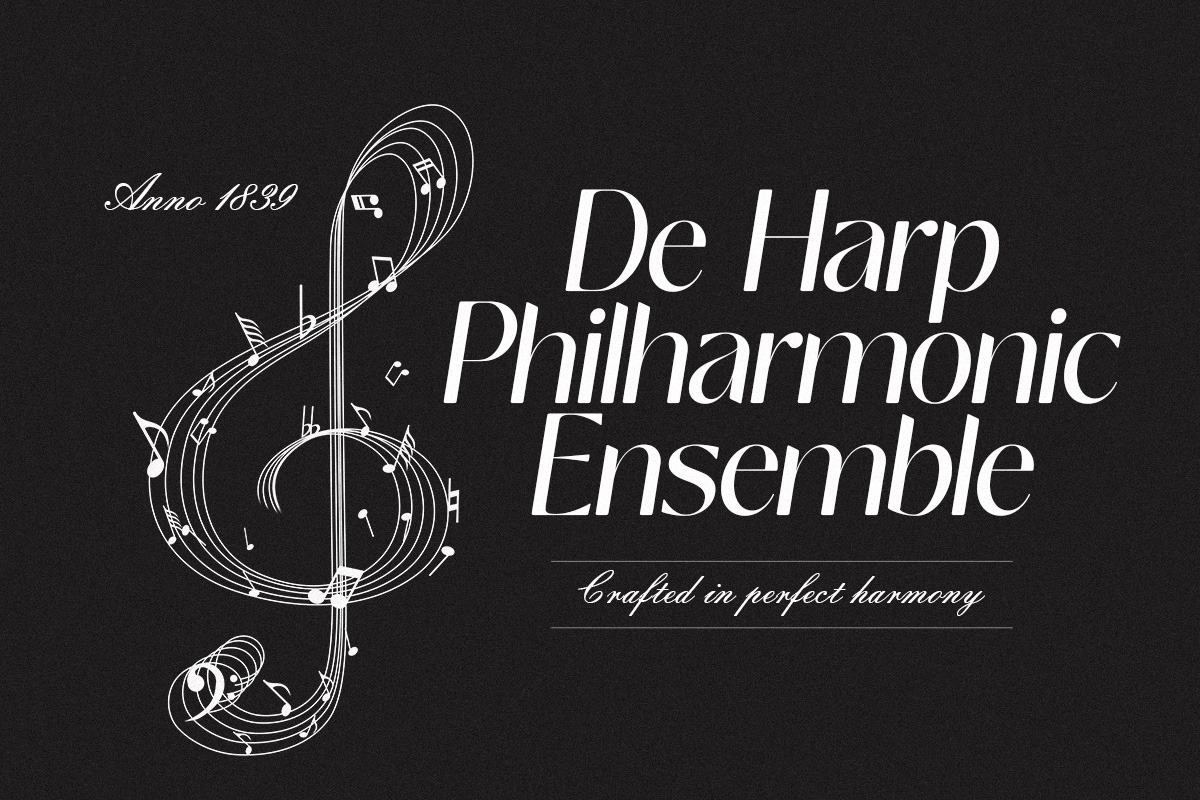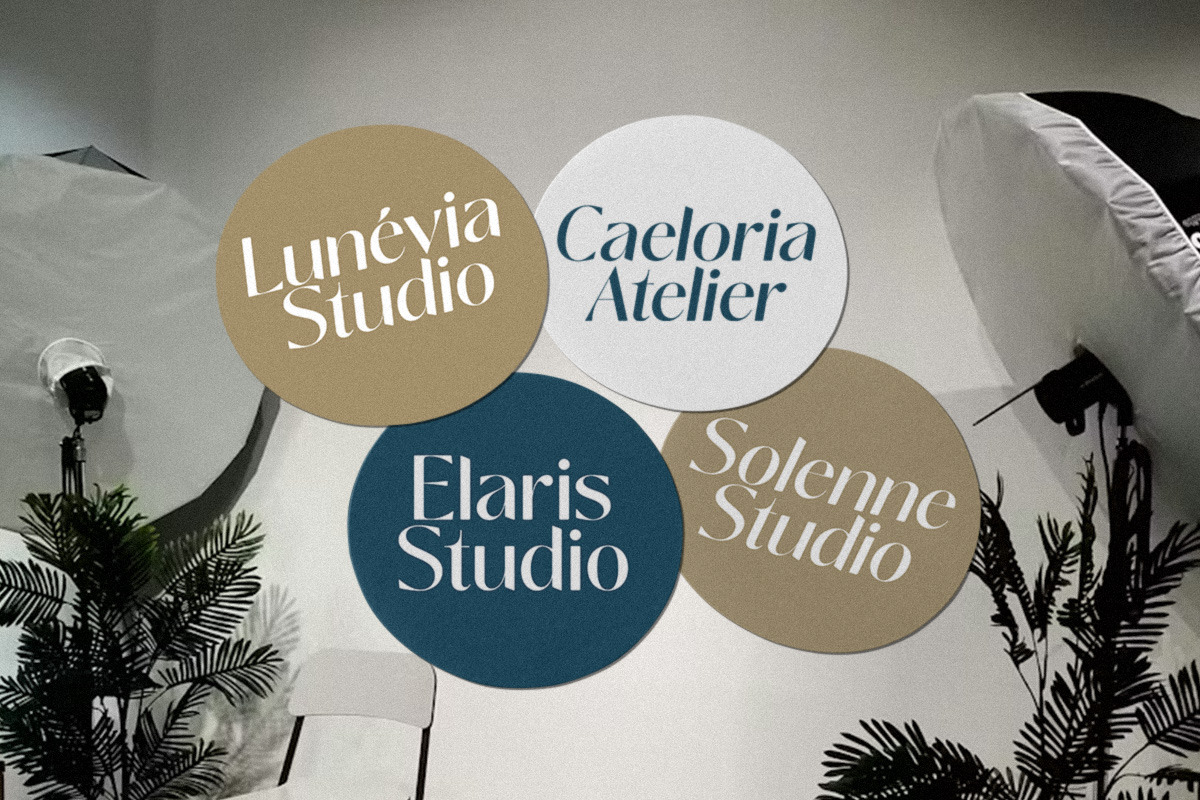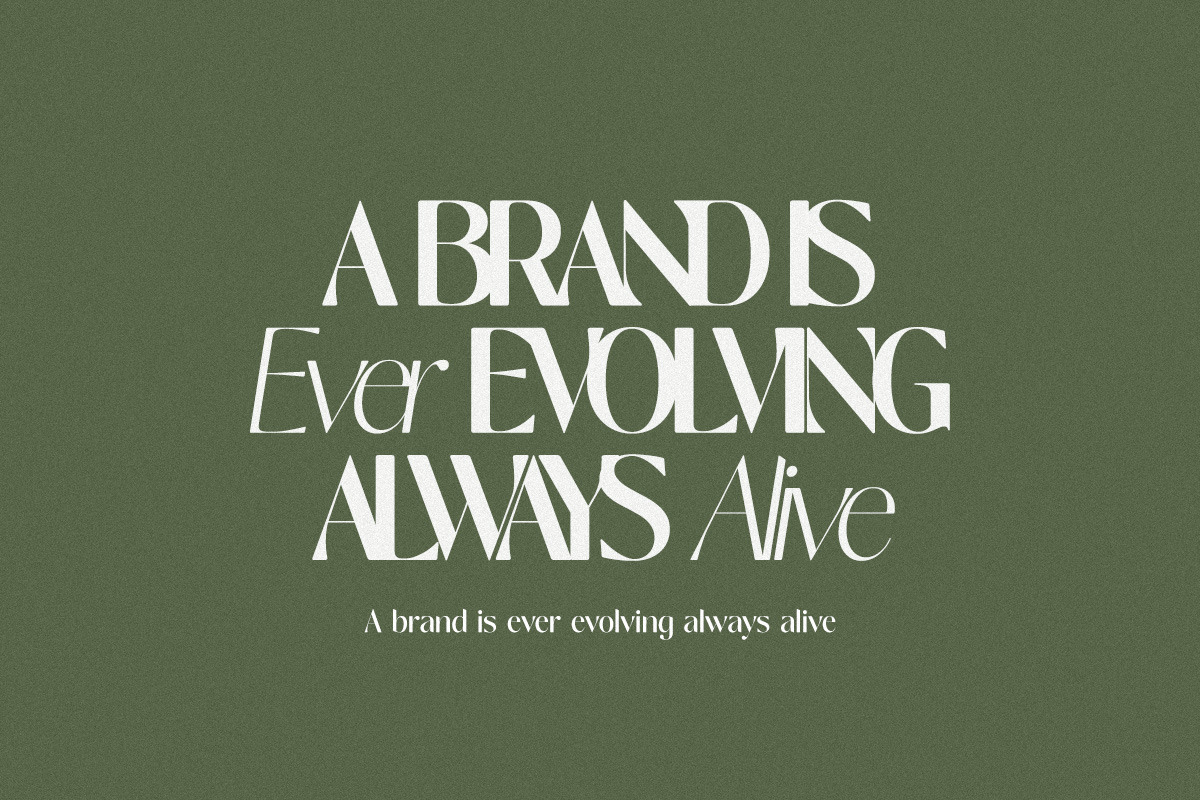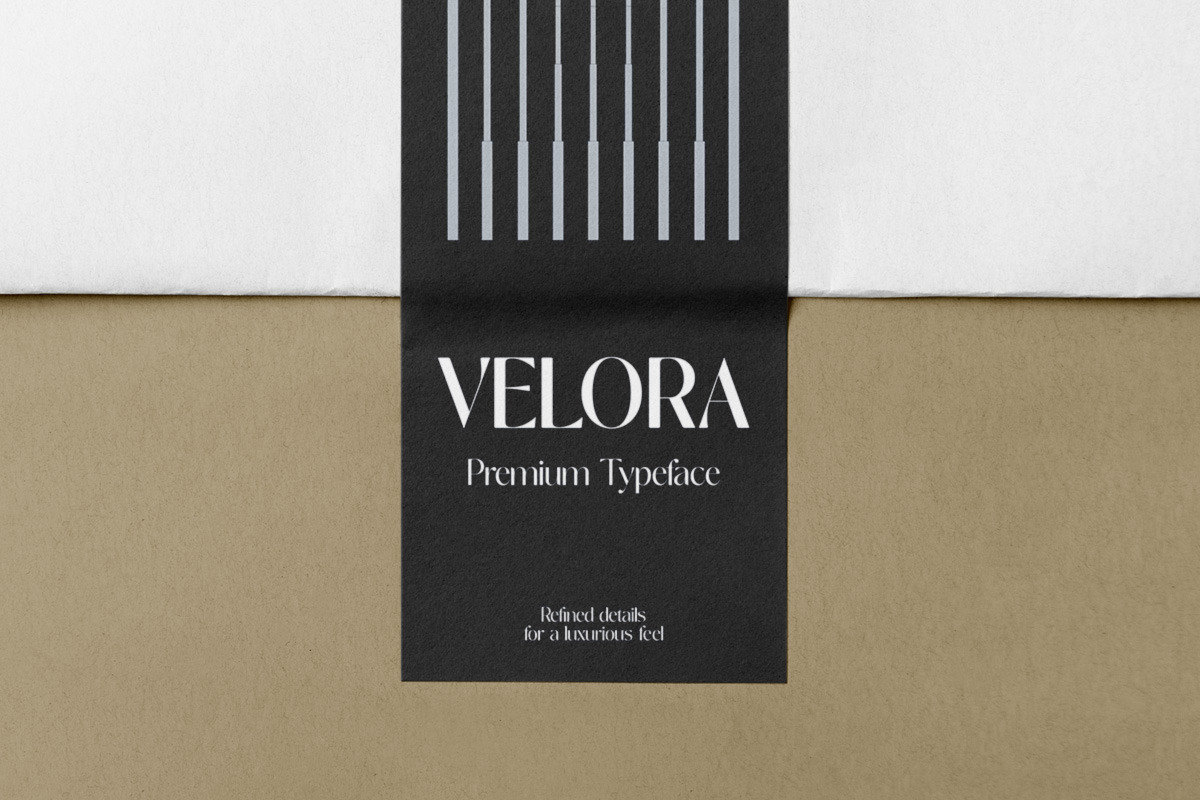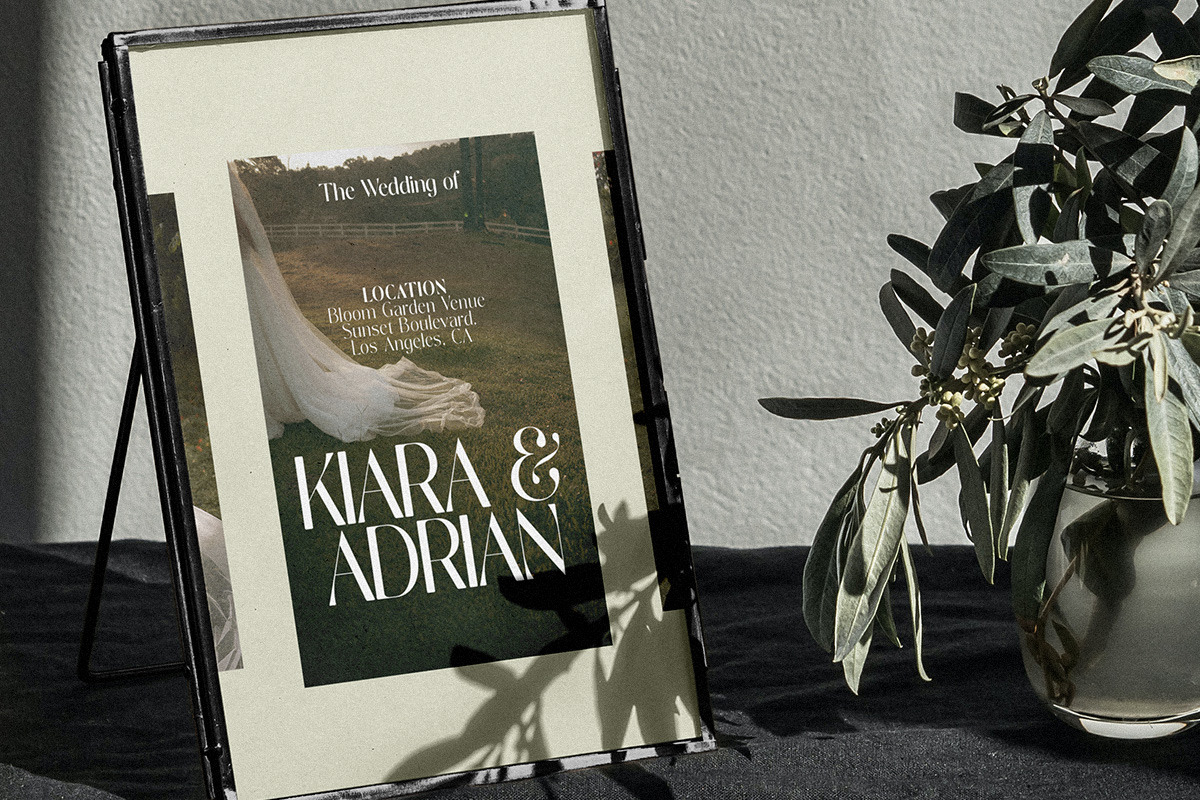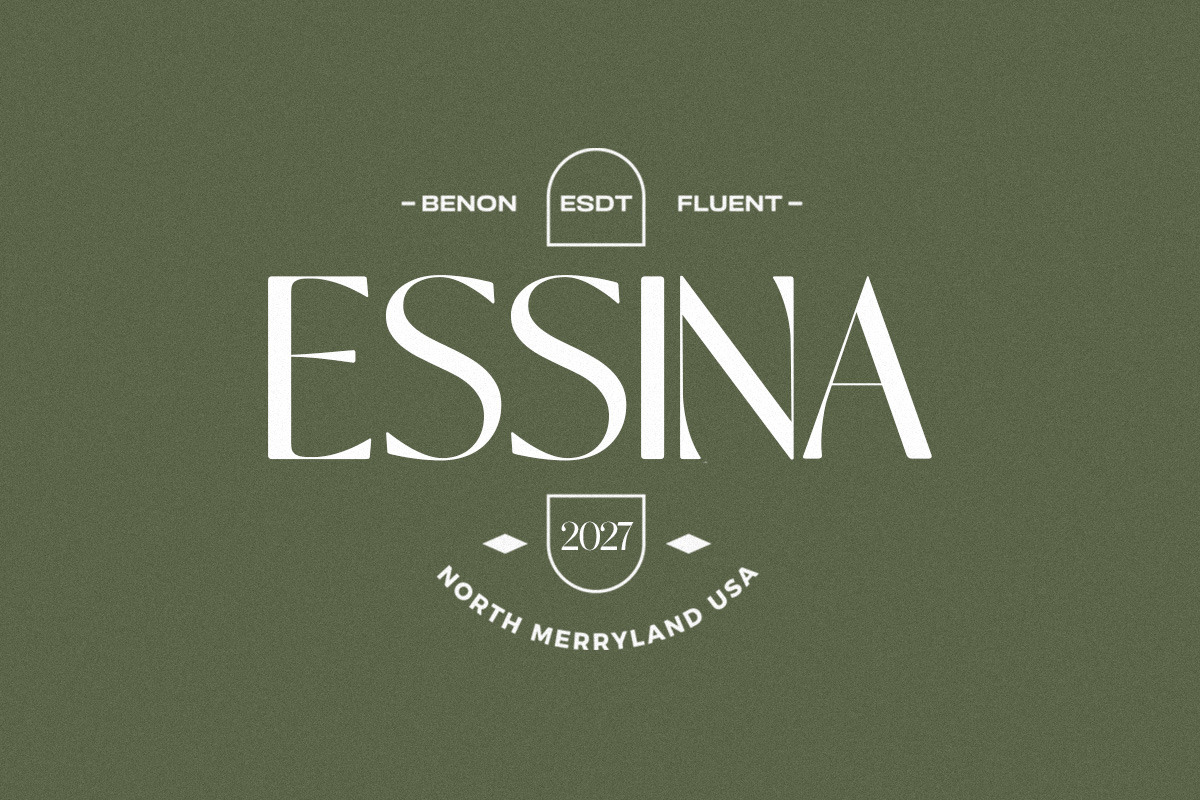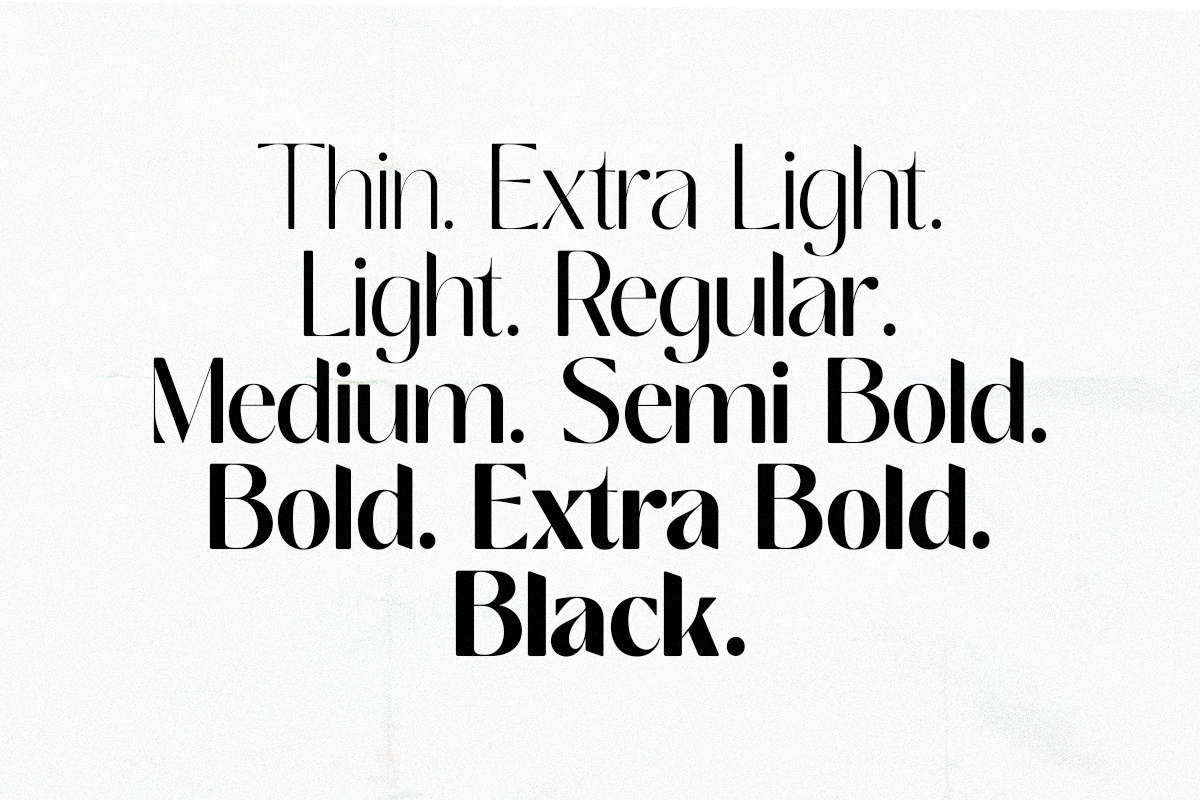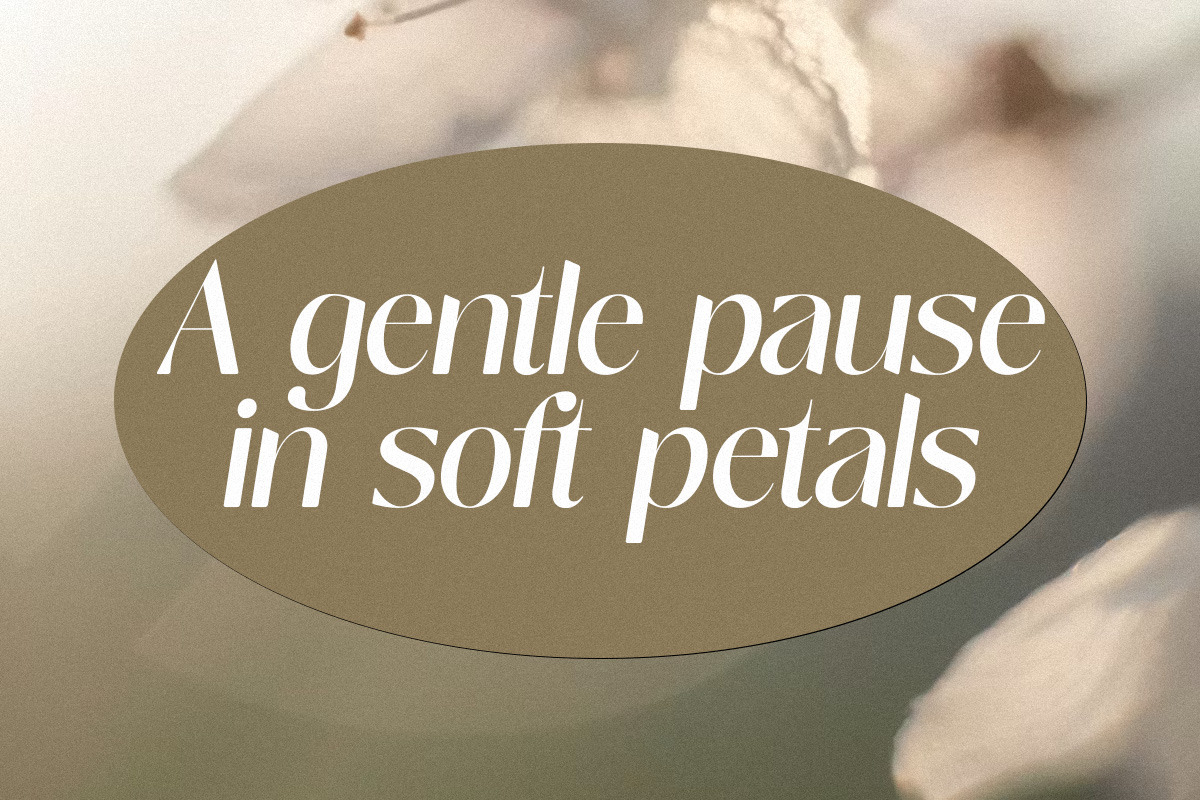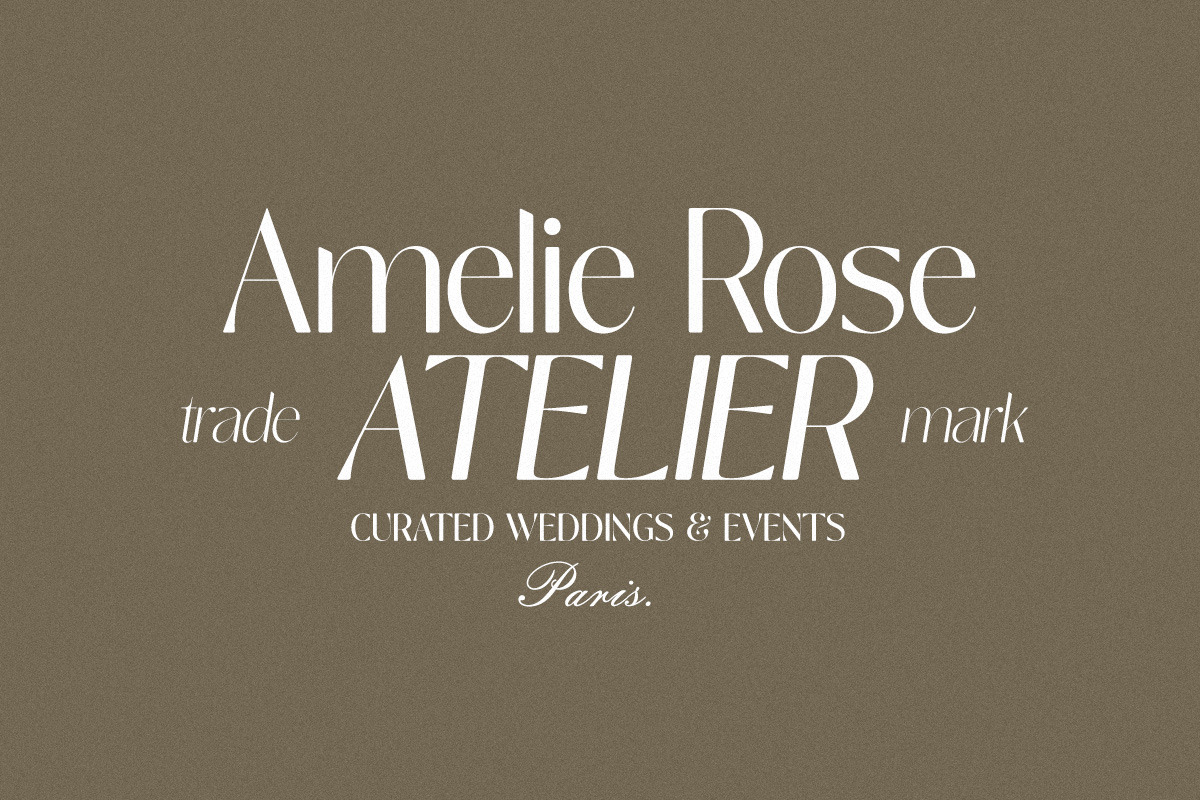
Nisanbel
Introducing Nisanbel: A Sans Serif Typeface for a Modern Aesthetic
Experience elegant simplicity with Nisanbel, a meticulously designed sans serif typeface that combines modern clarity and timeless sophistication. With its clean structure, subtle contrasts, and gentle curves, Nisanbel creates a strong visual presence while remaining highly versatile for a variety of design needs.
Enter the world of Nisanbel, where each letterform is crafted with precision and balance. Its harmonious proportions and contemporary feel make it suitable for both bold statements and elegant compositions. A carefully developed italic style creates a sense of movement, giving your designs a dynamic yet clean look.
Modern Clarity Nisanbel's clean, structured design ensures readability while maintaining an elegant aesthetic.
Stylish Ligatures Enhance your typography with a selection of elegant ligatures for more expressive text.
Advanced OpenType Features Access flexible typographic controls to fine-tune your layout and style.
Extensive Language Support Supports over 90 languages, making it ideal for global communication.
True Slant Style Designed with purpose—not just a slant—creating a natural flow that blends beautifully with the upright style.
Editorial Design Ideal for magazines, books, and long-form reads with excellent readability.
Branding & Identity Create a clean, modern, and memorable brand presence.
Web Design Optimized for clarity and readability across digital screens.
Packaging & Print Adds a premium, contemporary touch to printed materials.
Invitations & Stationery Provides a clean and stylish look for both formal and creative use.
Discover the versatility of Nisanbel and enhance your design projects with modern typographic styles.